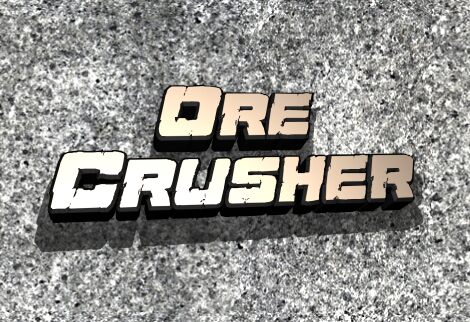
Ore Crusher Expanded Italic is a free distorted cartoon display font with an extra-wide, hard-charging silhouette. Its heavy letters lean forward and use squared curves, sharp joins, and deep angled cuts that suggest speed. Small chips break the otherwise solid strokes.
A motorsport brand or action-sports label could use it for logos, vehicle graphics, merchandise, and event posters, since the stretched stance resembles custom racing lettering. In magazine design, it is particularly suited to feature openers about modified cars, extreme sports, or arcade racing, where the type can function as part of the subject rather than neutral titling.
Ore Crusher Expanded Italic